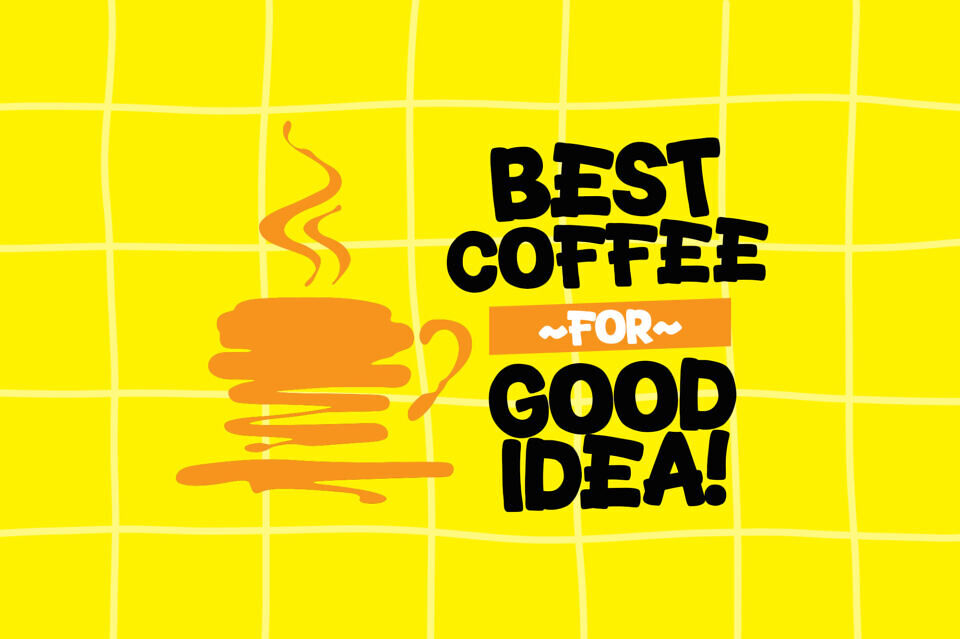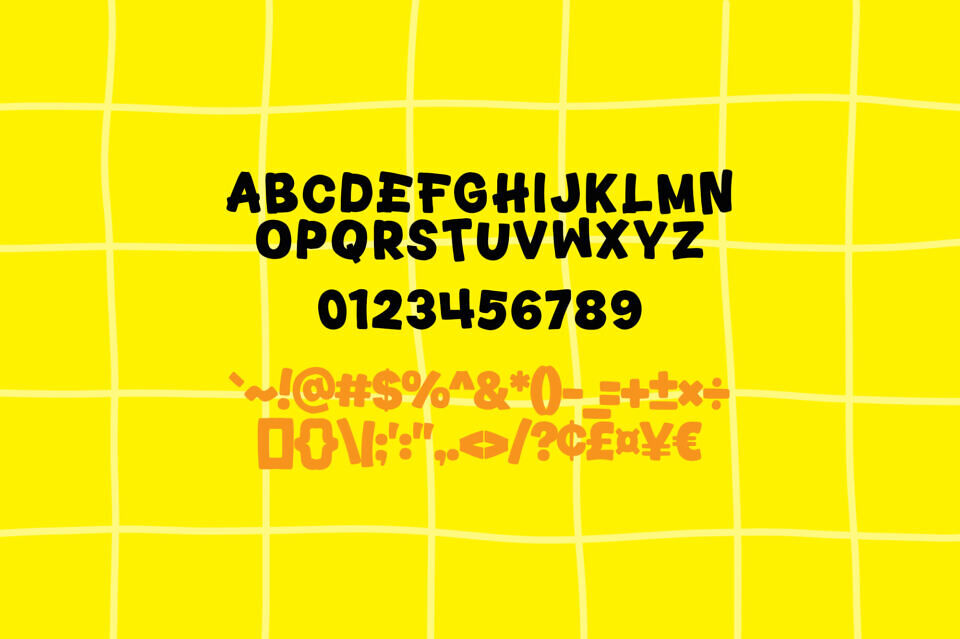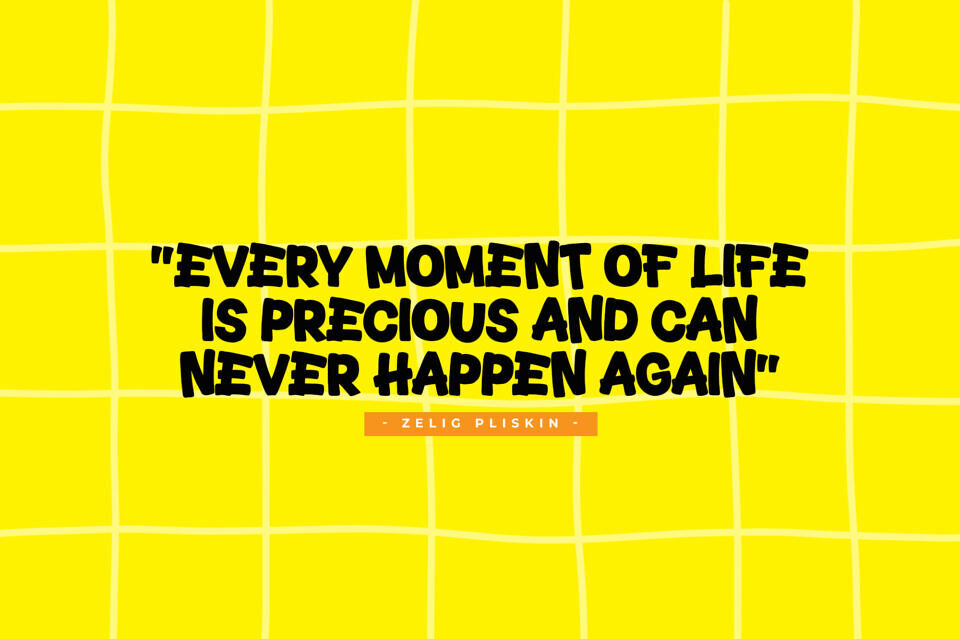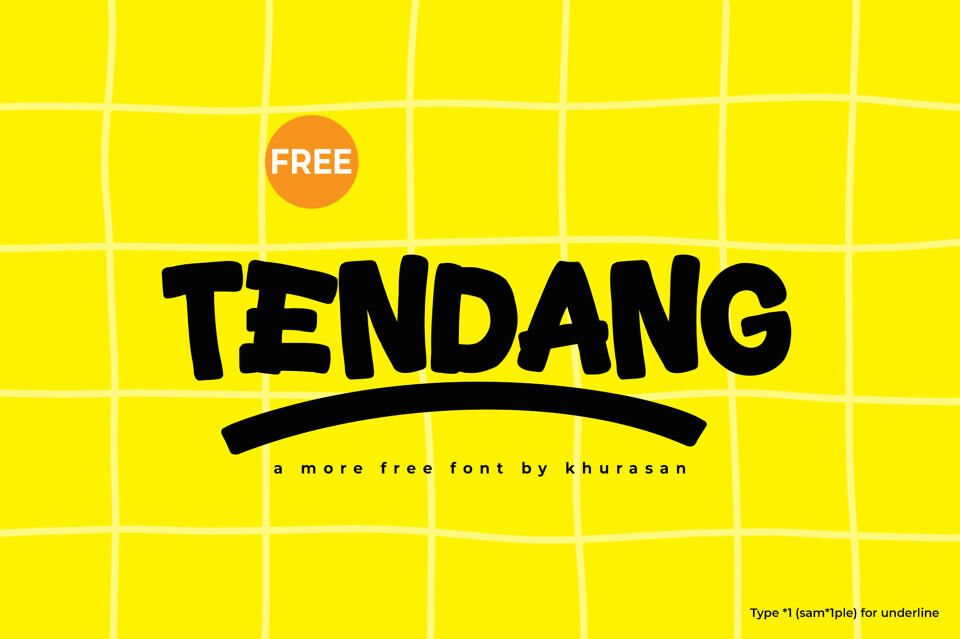
Tendang Font
Tendang is a modern and cute display font perfect for posters, logos, magazines, book covers, banners, and many more! Get this amazing font, and use it to create lovely designs.